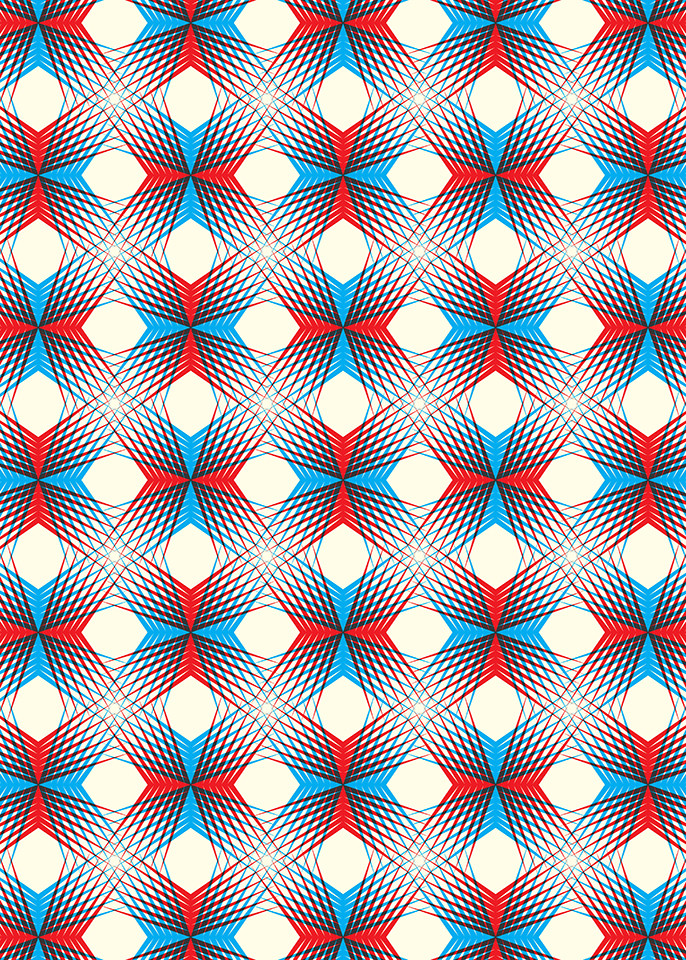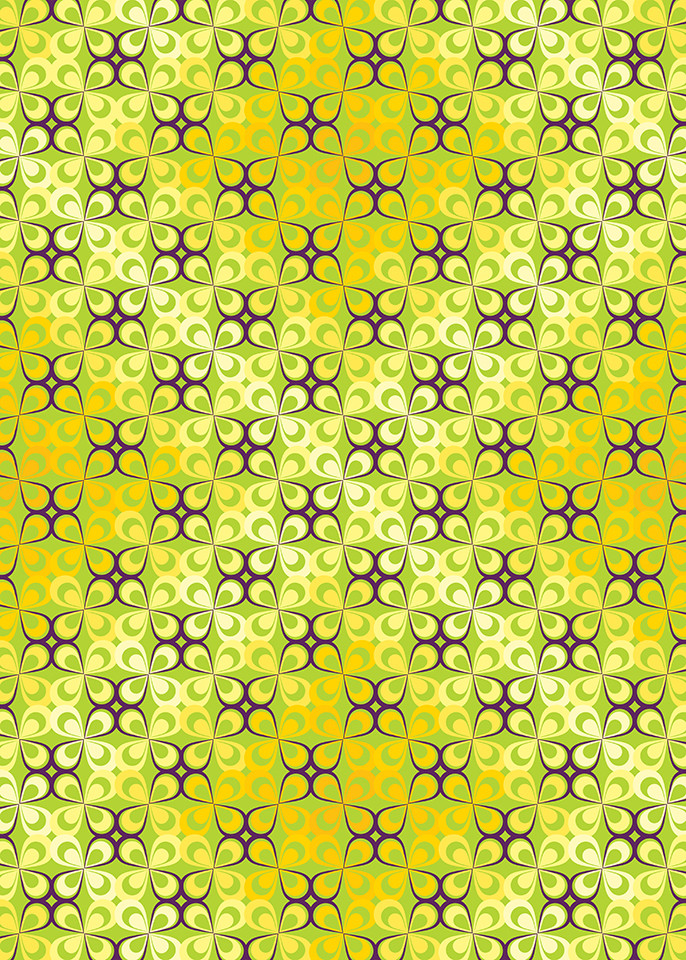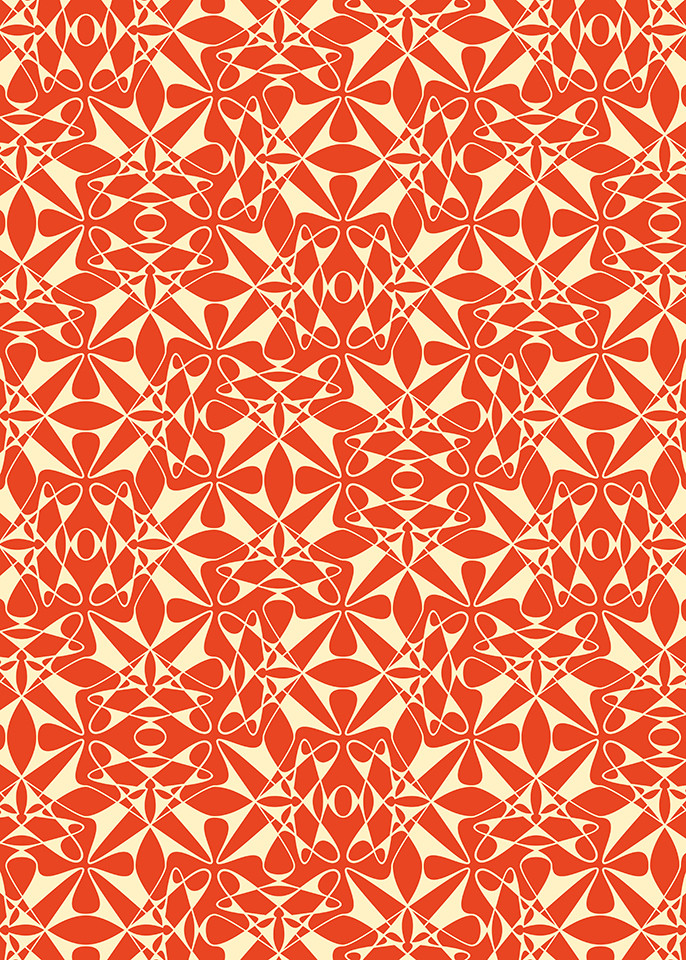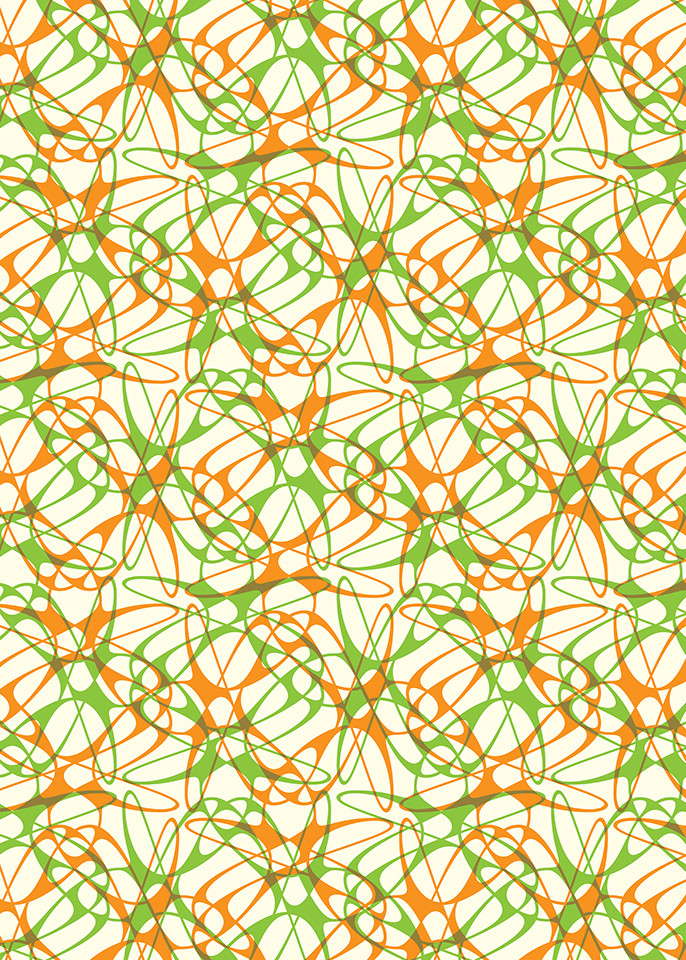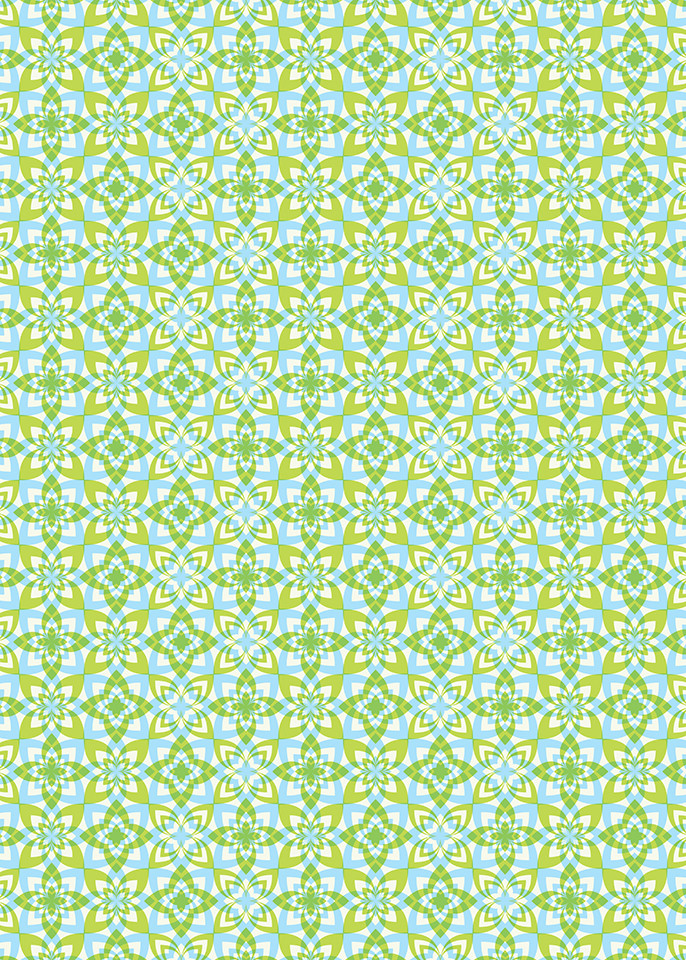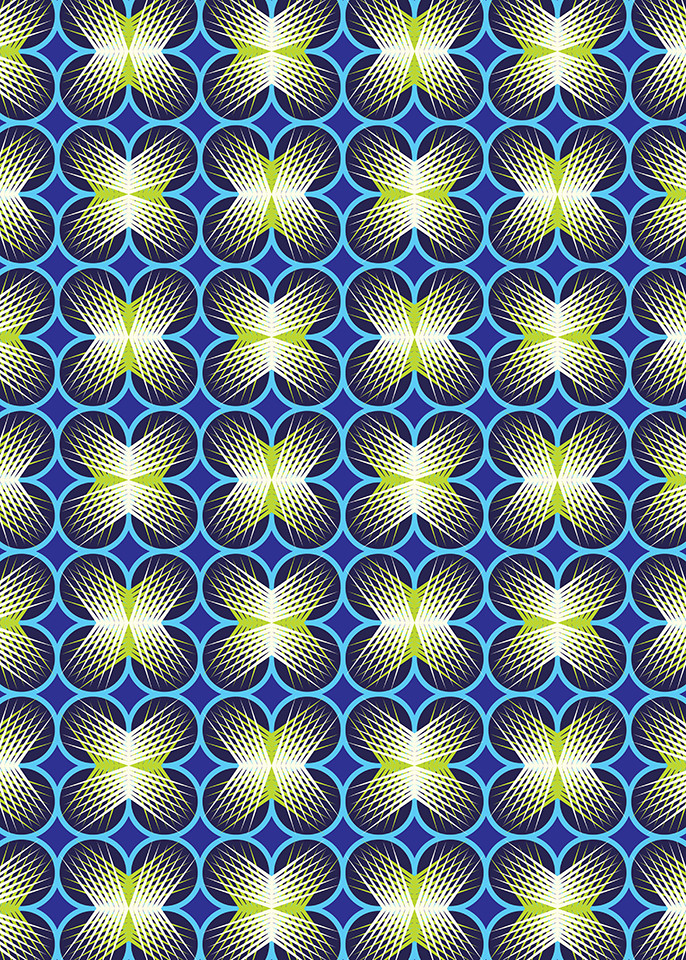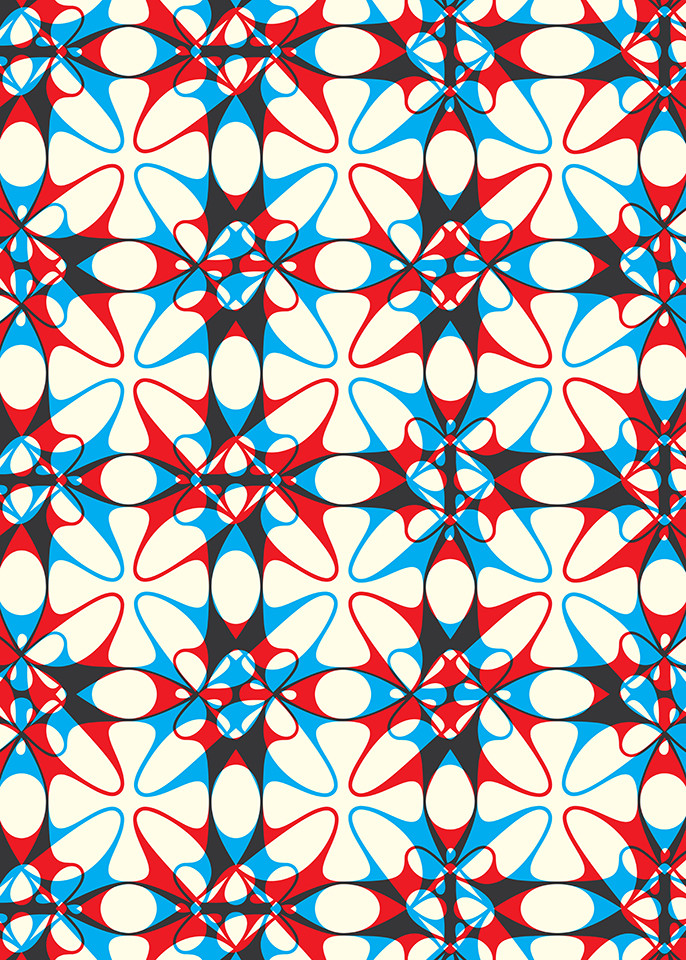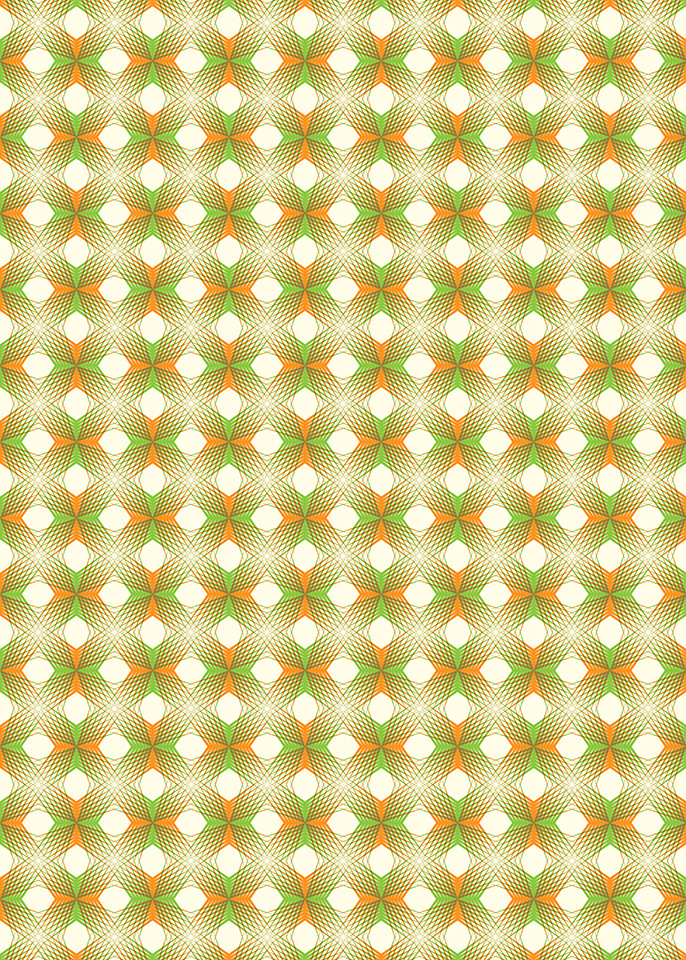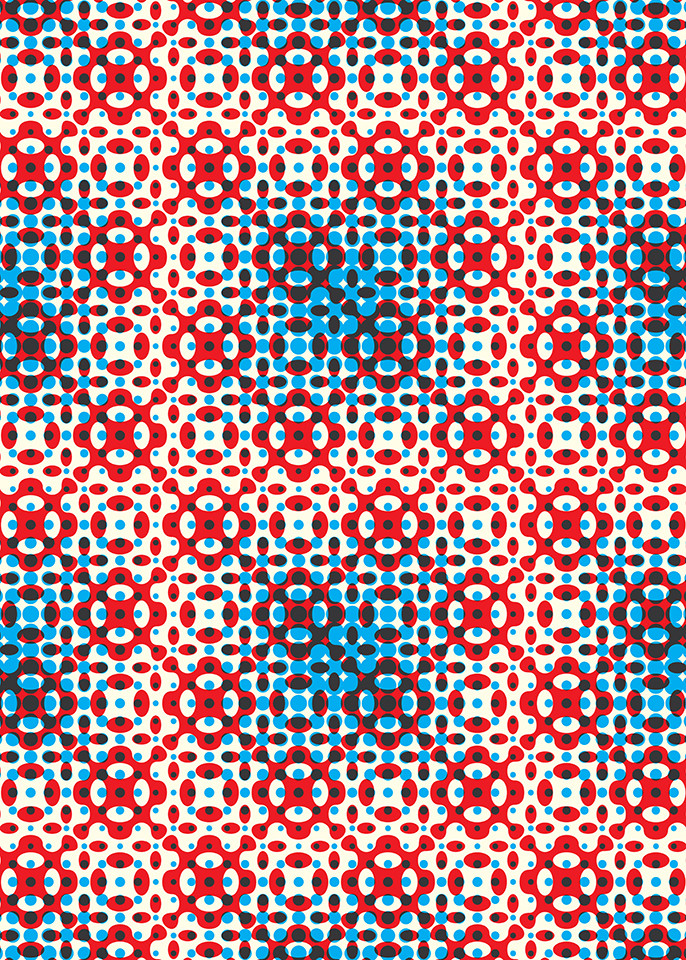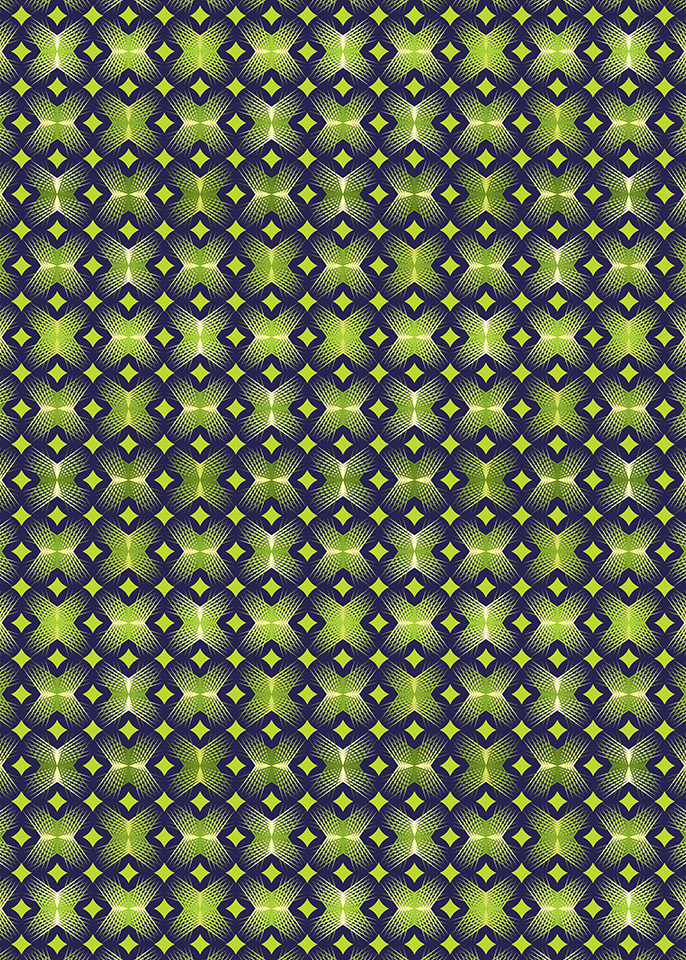
16 oversize sheets featuring striking motifs from the early days of computer-aided design
For Emigre Fonts designer Zuzana Licko, type can do more than generate words: It can be a springboard for eye-grabbing motifs—from computational grids to geometric florals to looping flourishes.
With sixteen designs conceived by Licko using her iconic typefaces and pattern-composition fonts, Emigre Creative Papers references the vivid colors and graphic experimentation of the 1980s and ’90s, when the leading-edge foundry made its name.
Licko’s creations also explore type as an instrument of digital craft, translated here from the screen to oversize perforated pages for design enthusiasts of the computer age.
About Zuzana Licko
Zuzana Licko was born in 1961 in Bratislava, Czechoslovakia, and emigrated with her parents to the United States in 1968. She graduated with a degree in Graphic Communications from the University of California at Berkeley in 1984.
Together with her husband, Rudy VanderLans, Licko started Emigre Graphics in 1984. Inspired by the technical possibilities of the Macintosh computer, the company became world renowned for its self-published magazine and digital type designs.